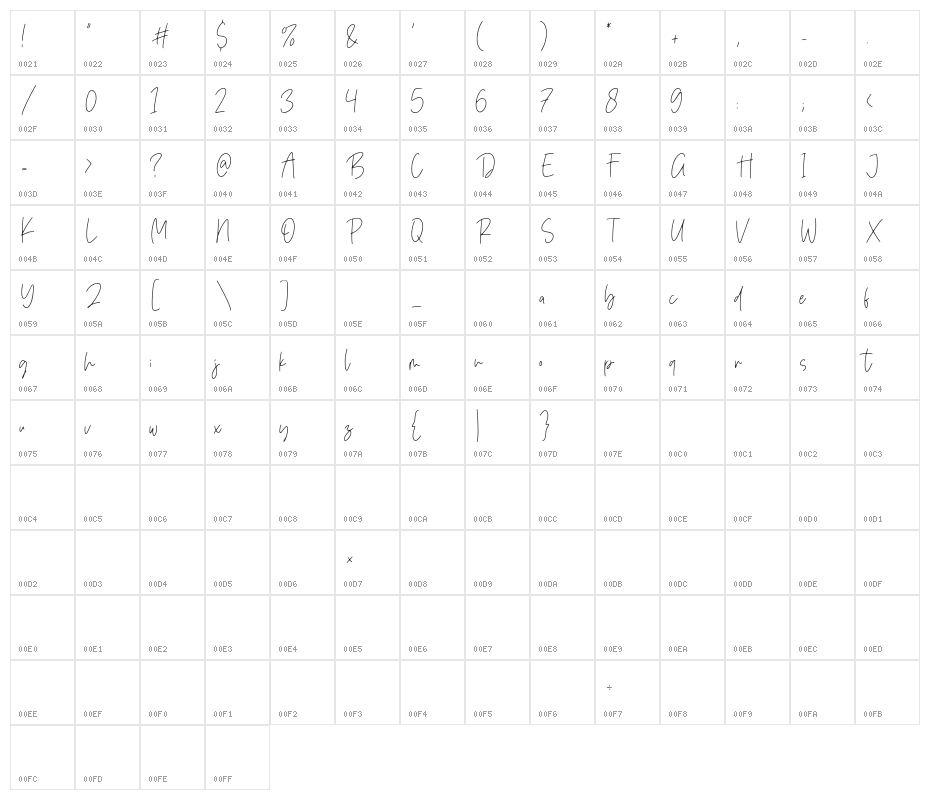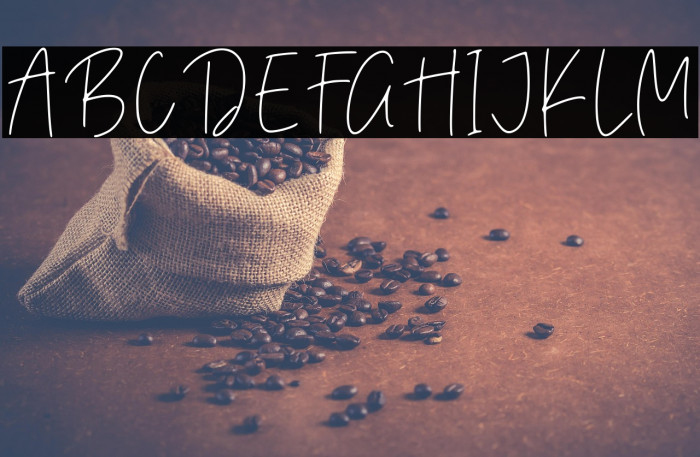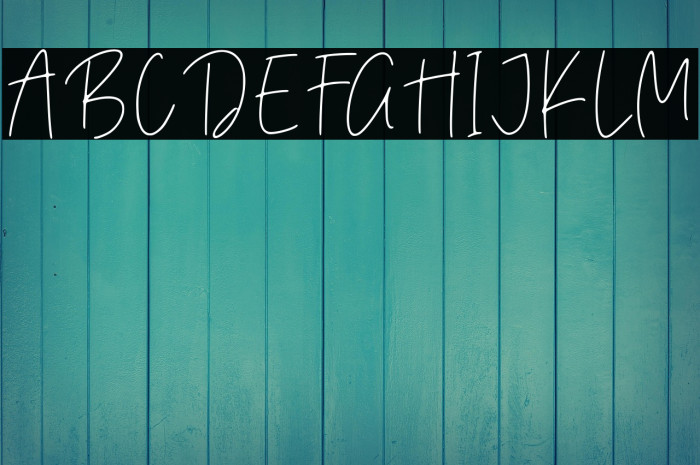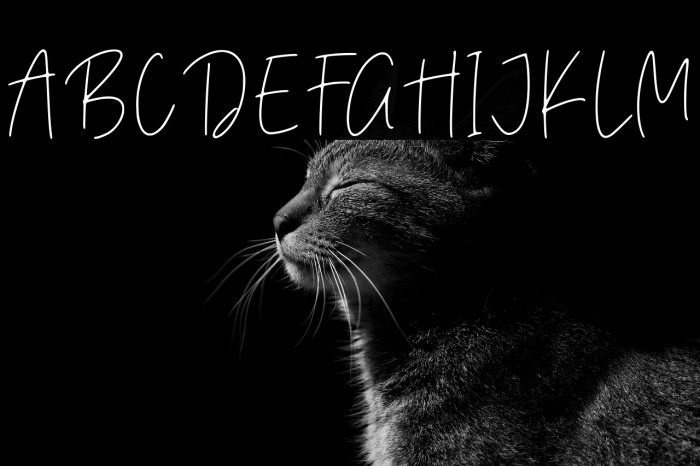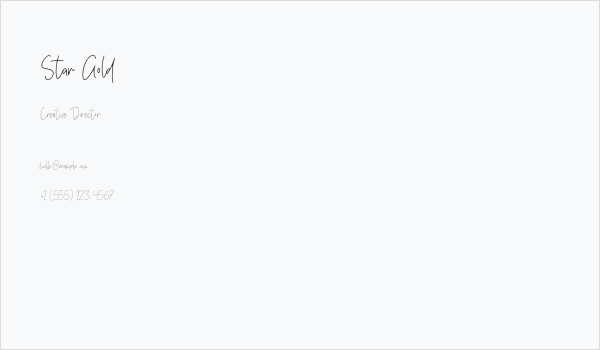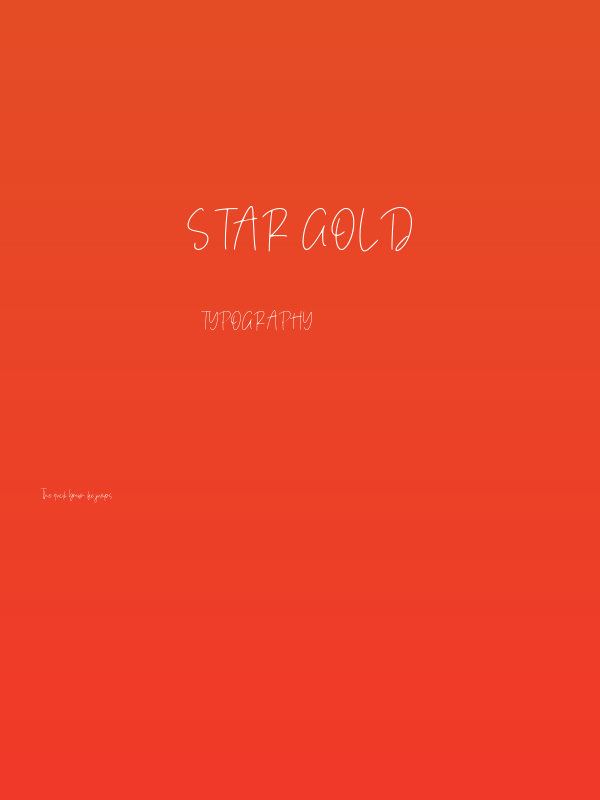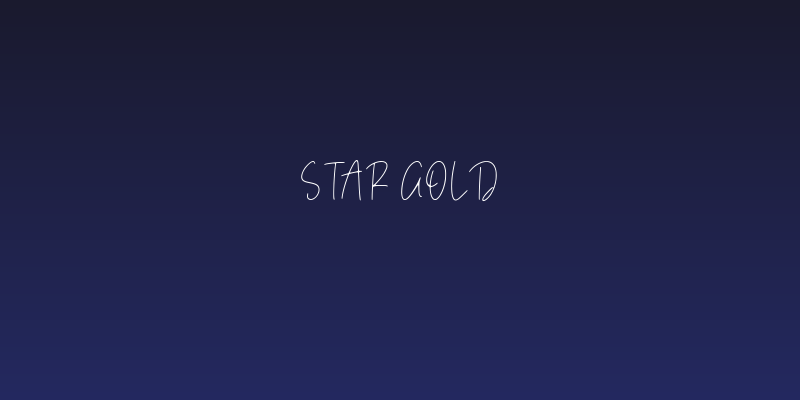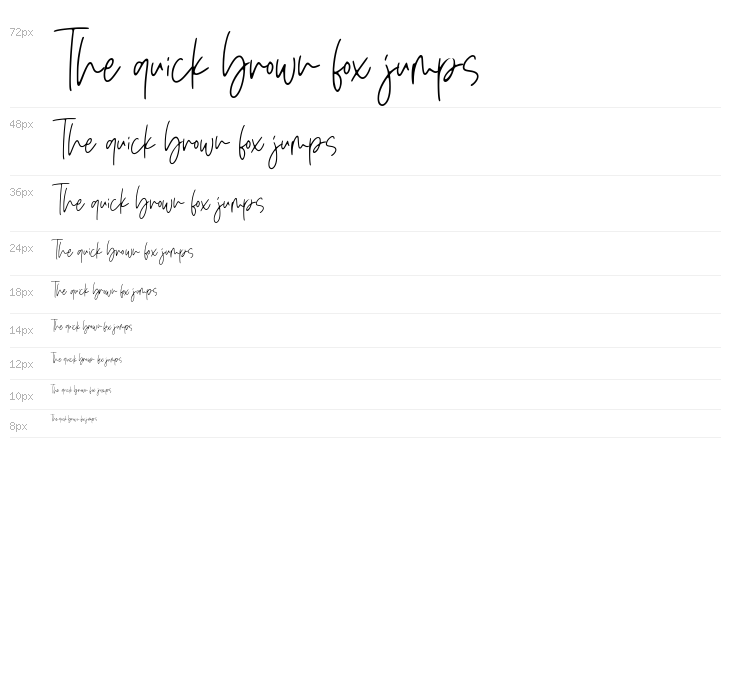
Star Gold Font
Star Gold Description
This font exudes a casual and handwritten style, characterized by its flowing, cursive-like strokes that mimic natural handwriting. The letters are slightly slanted, giving a sense of movement and fluidity. The uppercase letters are tall and elegant, while the lowercase letters maintain a consistent flow, enhancing readability. Numbers and special characters follow the same handwritten aesthetic, ensuring a cohesive look across all text elements. The overall appearance is both personal and approachable, making it ideal for projects that require a human touch.
| Overall Style | Casual, Personal |
| Use Case | Logos, Invitations, Social Media Graphics |
| Proposed Projects | Ideal for personal invitations, greeting cards, branding projects, and social media graphics where a personal touch is desired. |